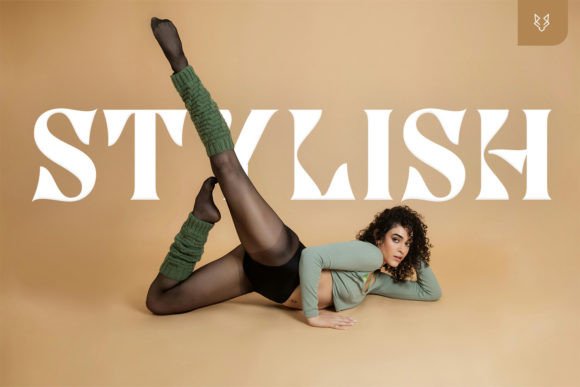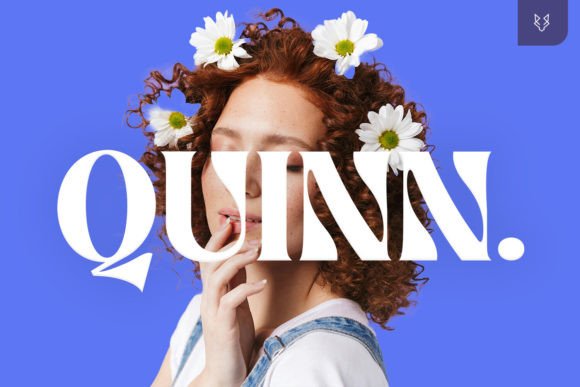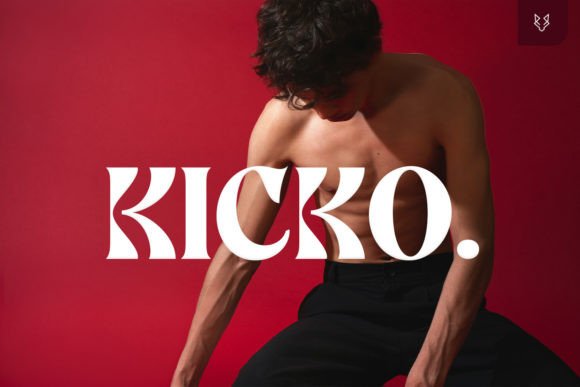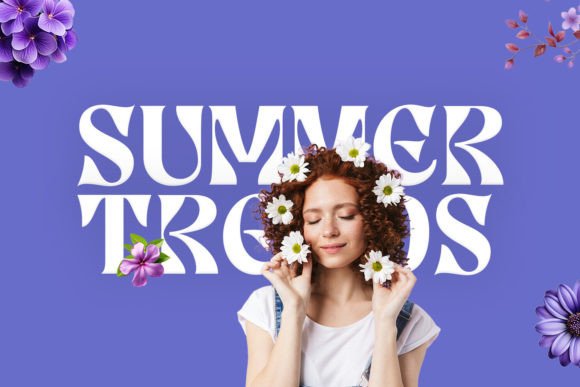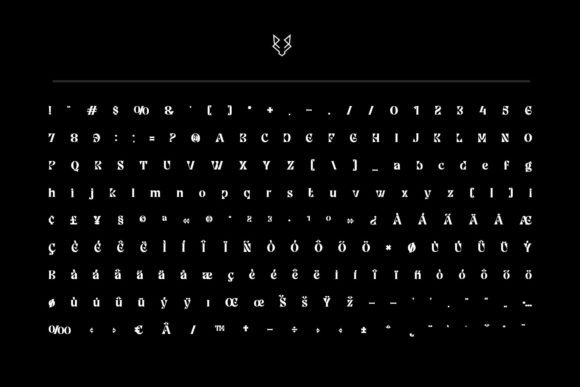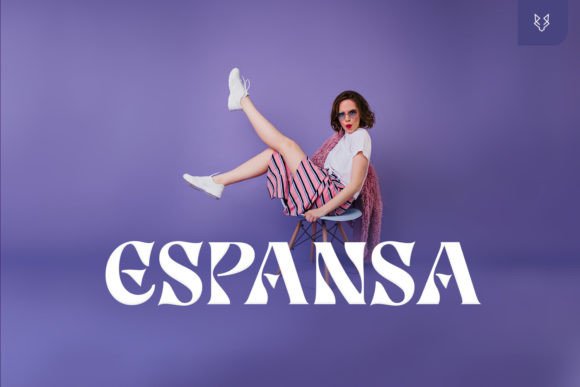
Introducing Espansa Font: The Epitome of Modern Typography
In the realm of typography, the quest for the perfect font is a perpetual journey. For fashion brands, posters, and magazines, the right font can elevate a design from ordinary to extraordinary. This is where Espansa Font comes into play, a meticulously crafted typeface that redefines modernity in typography. Espansa embodies a harmonious fusion of sleek aesthetics and timeless elegance, making it the perfect choice for brands aiming to convey sophistication and style.
The Design Philosophy Behind Espansa
Espansa’s design is rooted in a deep understanding of what makes a font truly captivating. With its clean lines and precise curves, Espansa captivates the eye and commands attention. Each letter is meticulously designed to ensure optimal legibility while exuding an unmistakable sense of refinement. This attention to detail makes Espansa a standout in the world of typography, perfect for applications where style and sophistication are paramount.
Versatility Across Mediums
One of Espansa’s greatest strengths is its versatility. This font shines in both digital and print media, effortlessly enhancing the visual impact of any project it graces. Whether adorning the pages of high-end fashion magazines or commanding attention on urban posters, Espansa stands as a testament to modern design at its finest. Its adaptability makes it an invaluable asset for designers and brands looking to create a cohesive visual identity across various platforms.
Perfect for Fashion Brands, Posters, and Magazines
Fashion brands, in particular, will find Espansa to be a game-changer. The font’s sleek and elegant design mirrors the sophistication and style that fashion brands strive to convey. For posters and magazines, Espansa offers a fresh and modern aesthetic that can help any publication or advertisement stand out in a crowded marketplace. Its unique blend of modernity and timelessness ensures that it will remain relevant for years to come.
Key Features of Espansa Font
• Clean Lines and Precise Curves: Espansa’s design is characterized by its clean lines and precise curves, making it both visually appealing and highly legible.
• Timeless Elegance: Despite being a modern font, Espansa possesses a timeless quality that ensures it will remain stylish for years to come.
• Versatility: Espansa is designed to work beautifully in both digital and print formats, making it incredibly versatile.
• Sophistication and Style: The font exudes sophistication and style, making it perfect for fashion brands and high-end publications.
Why Choose Espansa?
In a sea of fonts, Espansa stands out for its unique blend of modern aesthetics and timeless elegance. Here are a few reasons why designers and brands should consider Espansa for their next project:
• Elevate Your Brand Identity: With Espansa, brands can instantly elevate their visual identity, conveying a sense of sophistication and style.
• Captivate Your Audience: Espansa’s captivating design ensures that your audience will take notice, whether on a poster, magazine page, or digital platform.
• Storytelling Through Typography: Each letter in Espansa tells a story of beauty and grace, allowing brands to communicate their message in a visually compelling way.
Espansa Font represents the pinnacle of modern typography, offering a perfect blend of sleek aesthetics and timeless elegance. Its versatility, sophistication, and captivating design make it an ideal choice for fashion brands, posters, and magazines looking to elevate their visual identity. With Espansa, designers and brands can create stunning visual experiences that captivate and engage their audience. Embrace the beauty and grace of Espansa, where modernity meets timelessness in the world of typography.